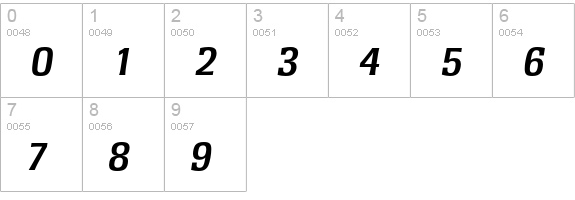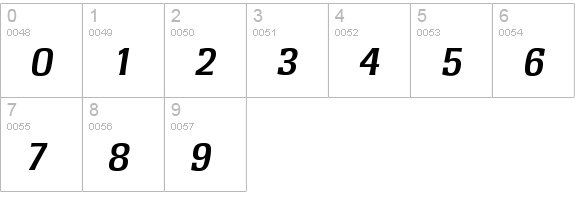
Rochester-DemiBoldIta font is a bold and stylish typeface that exudes elegance and sophistication. Its unique blend of boldness and italic styling makes it perfect for adding a touch of flair to any design project. With its sleek curves and sharp edges, this font is sure to make a statement and grab attention. What sets Rochester-DemiBoldIta font apart is that it is available for free download at FontsMarket.com. This means that you can easily access and use this stunning font in your projects without any cost. Whether you're creating a poster, logo, or website design, Rochester-DemiBoldIta font will elevate your work and give it a professional and polished look. Don't miss out on this fantastic opportunity to enhance your designs with the Rochester-DemiBoldIta font. Download it for free today at FontsMarket.com and take your creations to the next level!